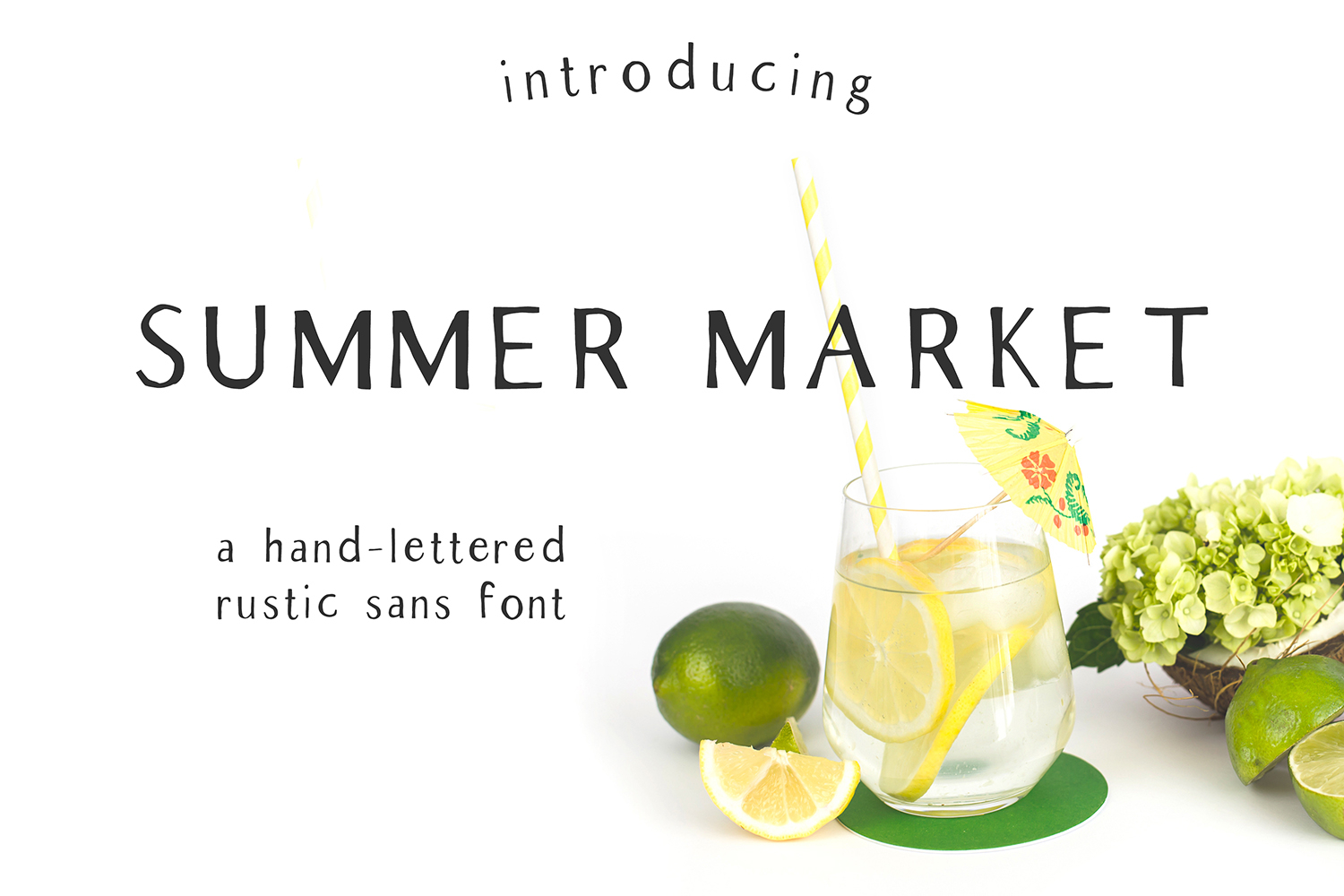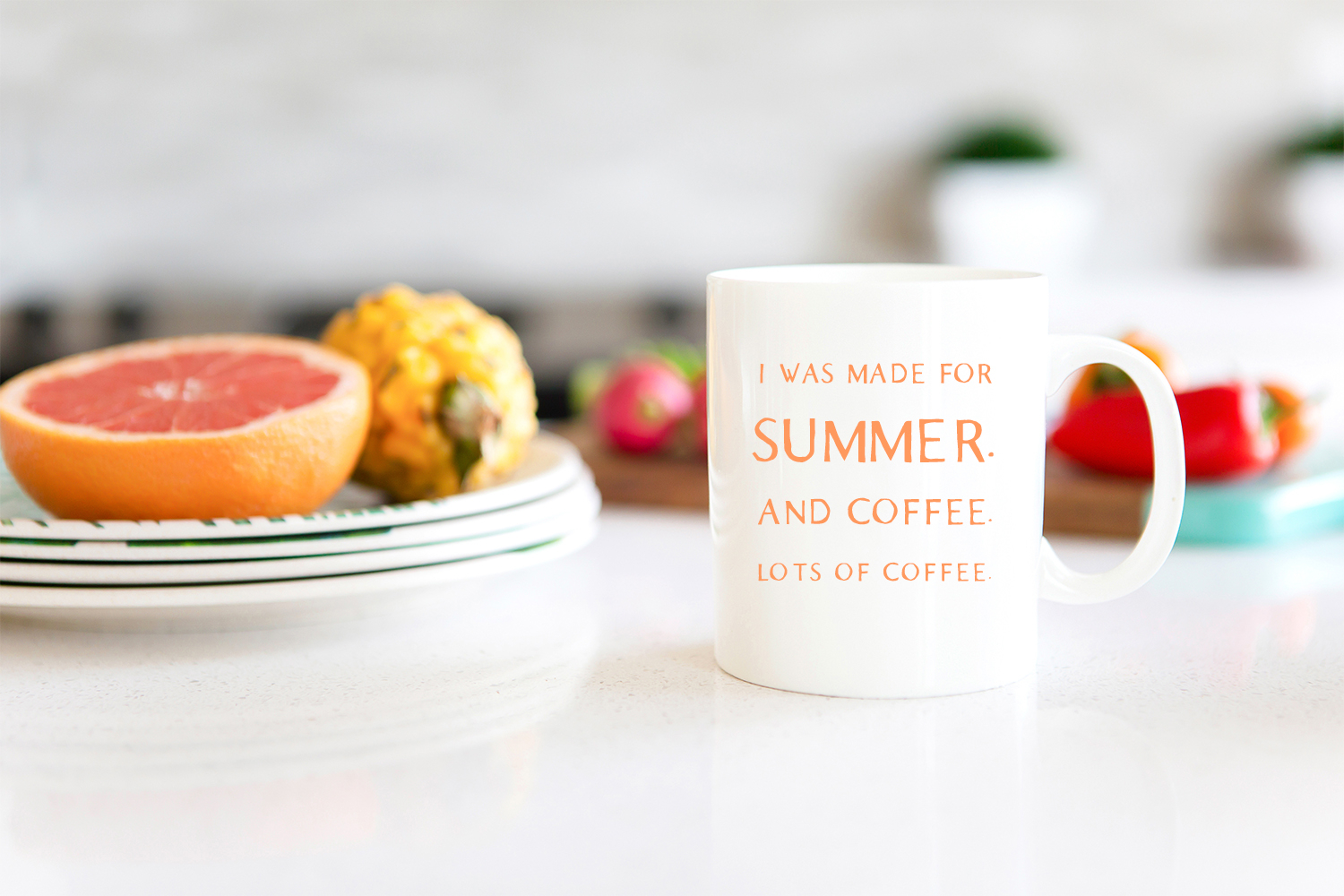
Summer Market is the sister font of Spring Market. Equally as rustic & farmhouse-inspired.
Summer Market is perfect for logos + branding, product design, invitations, & more. Comes with some language support.
Summer Market